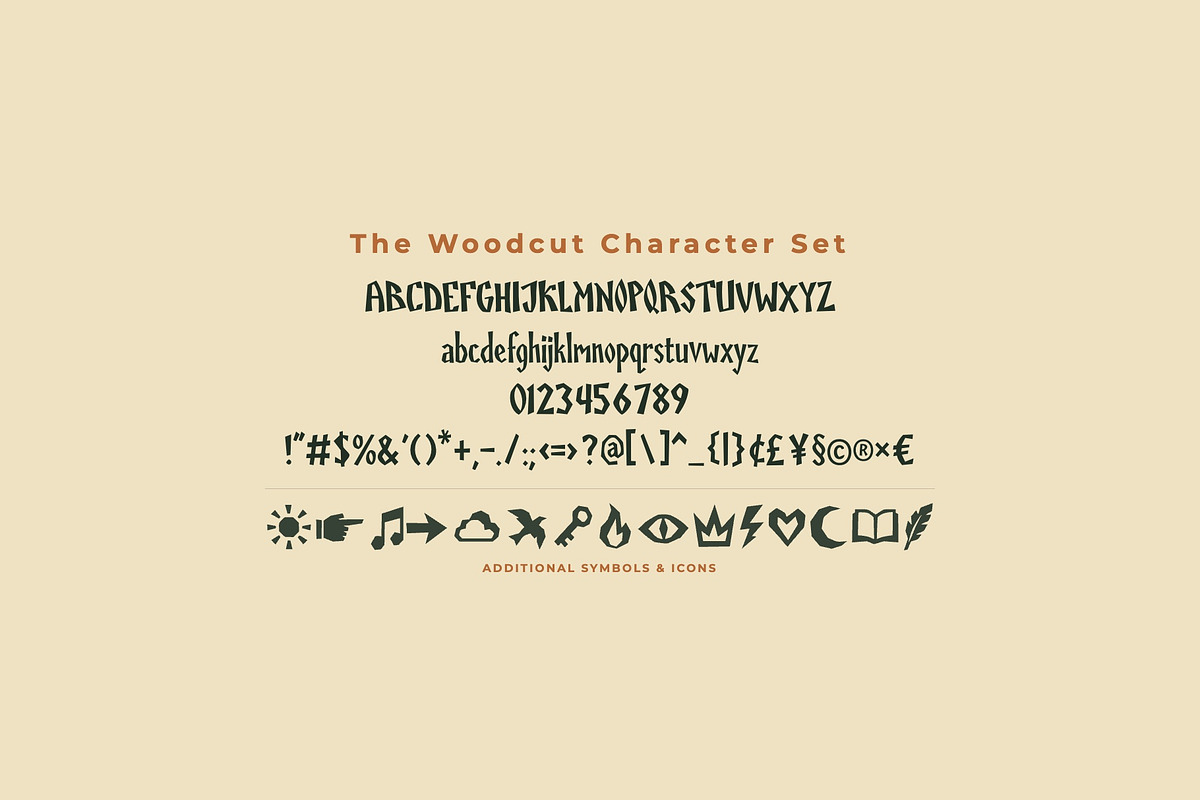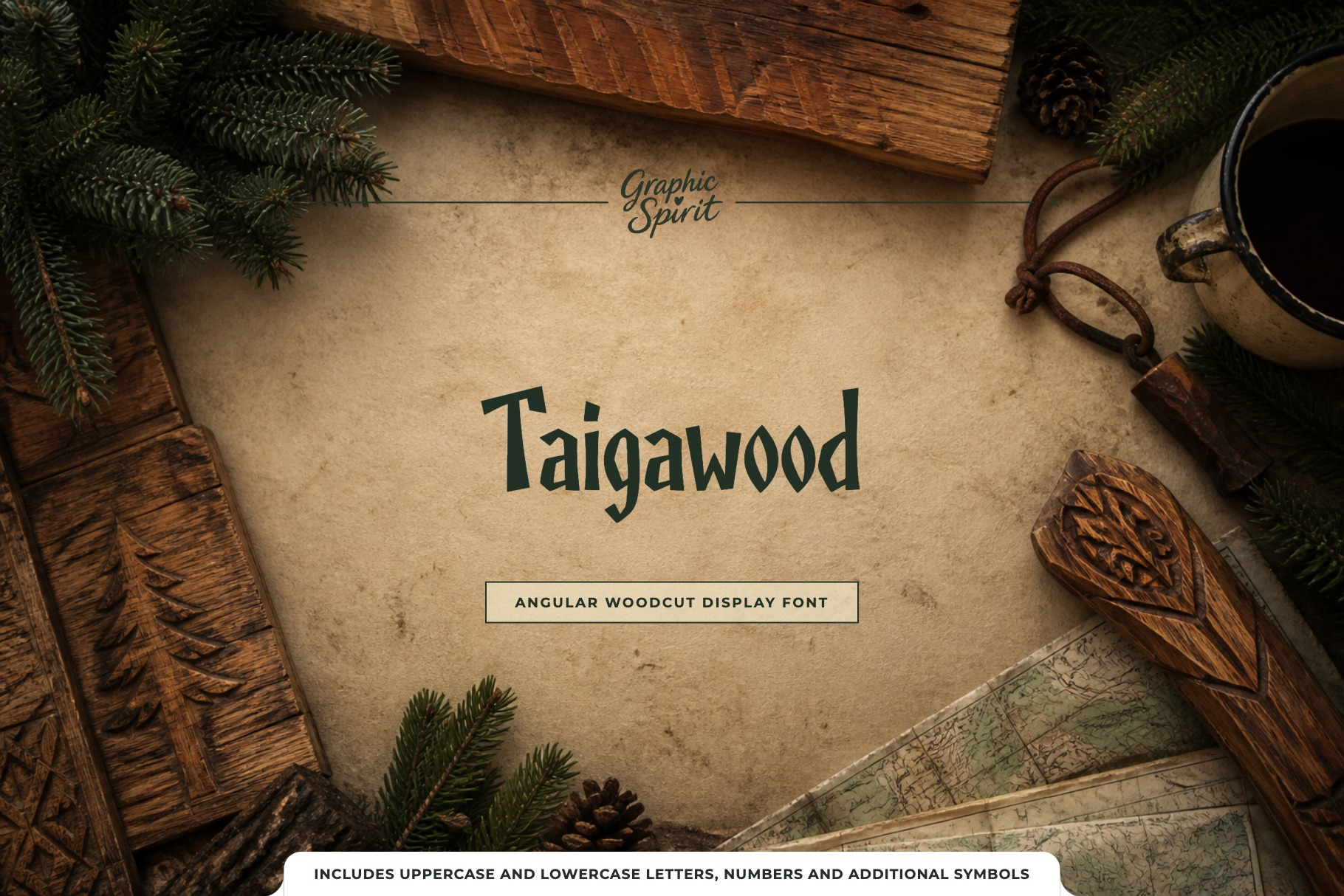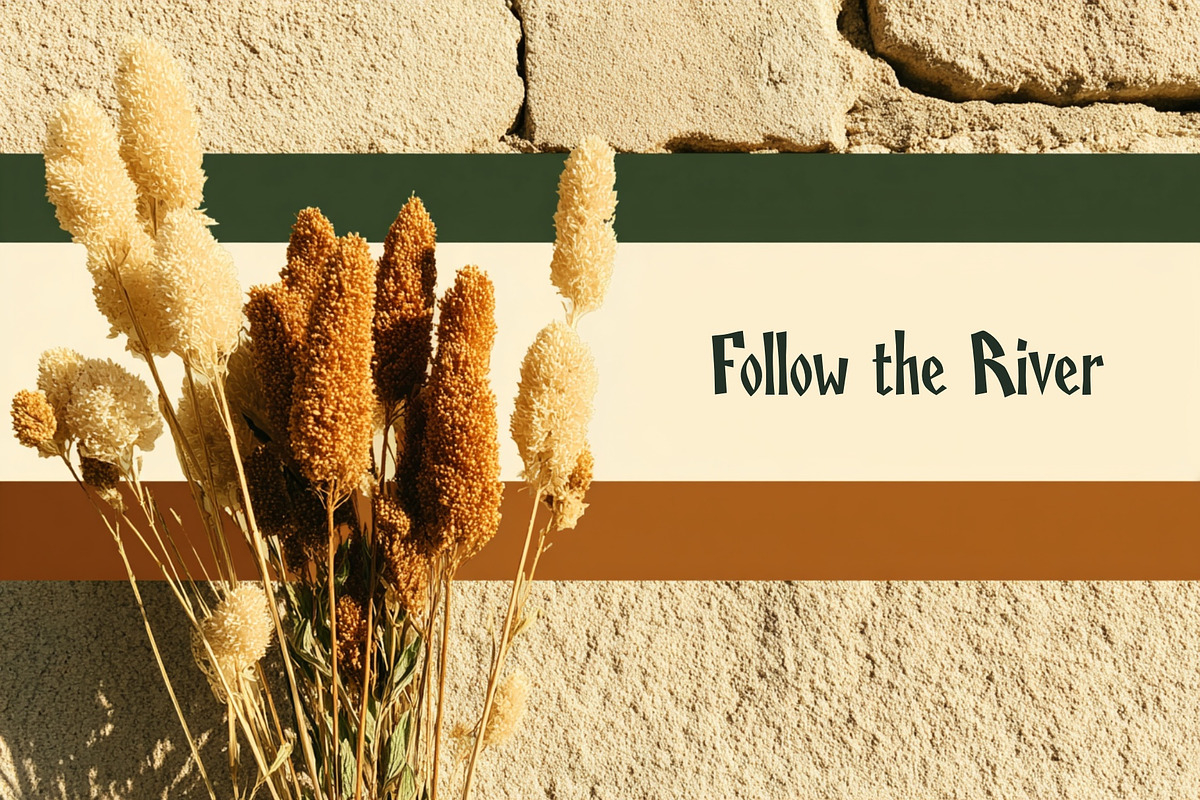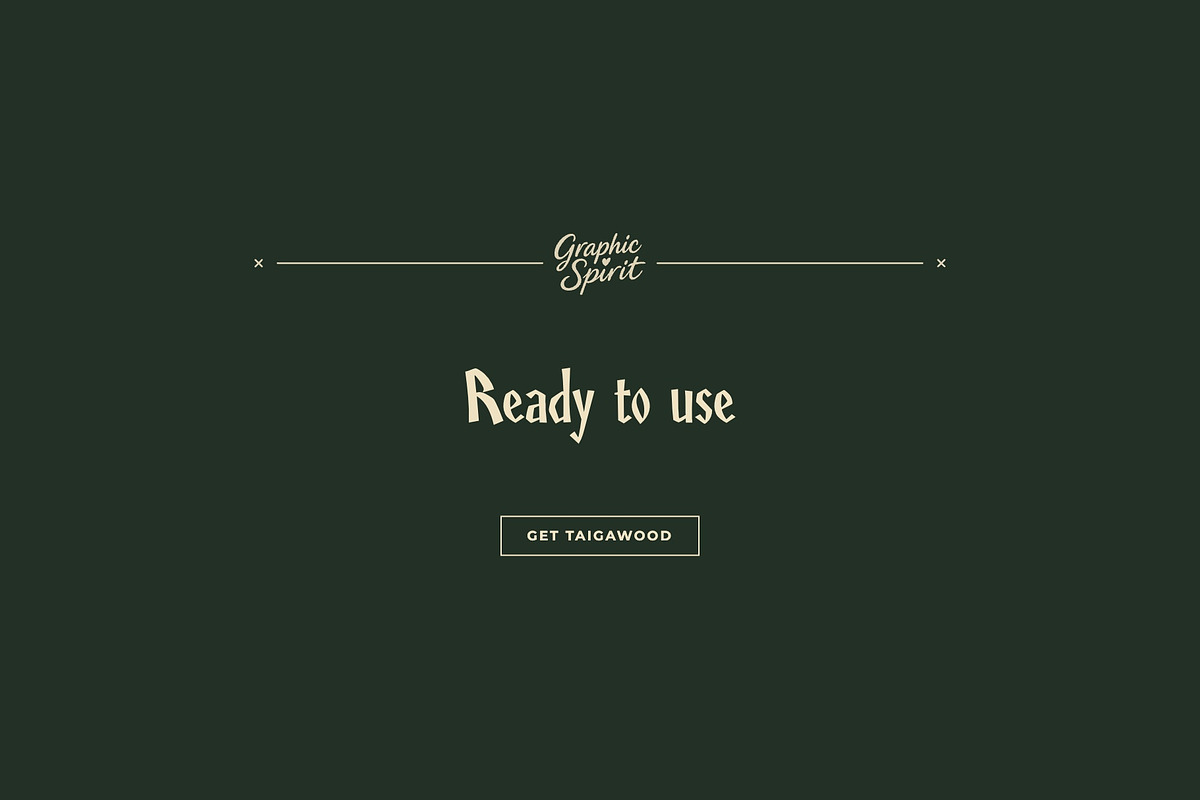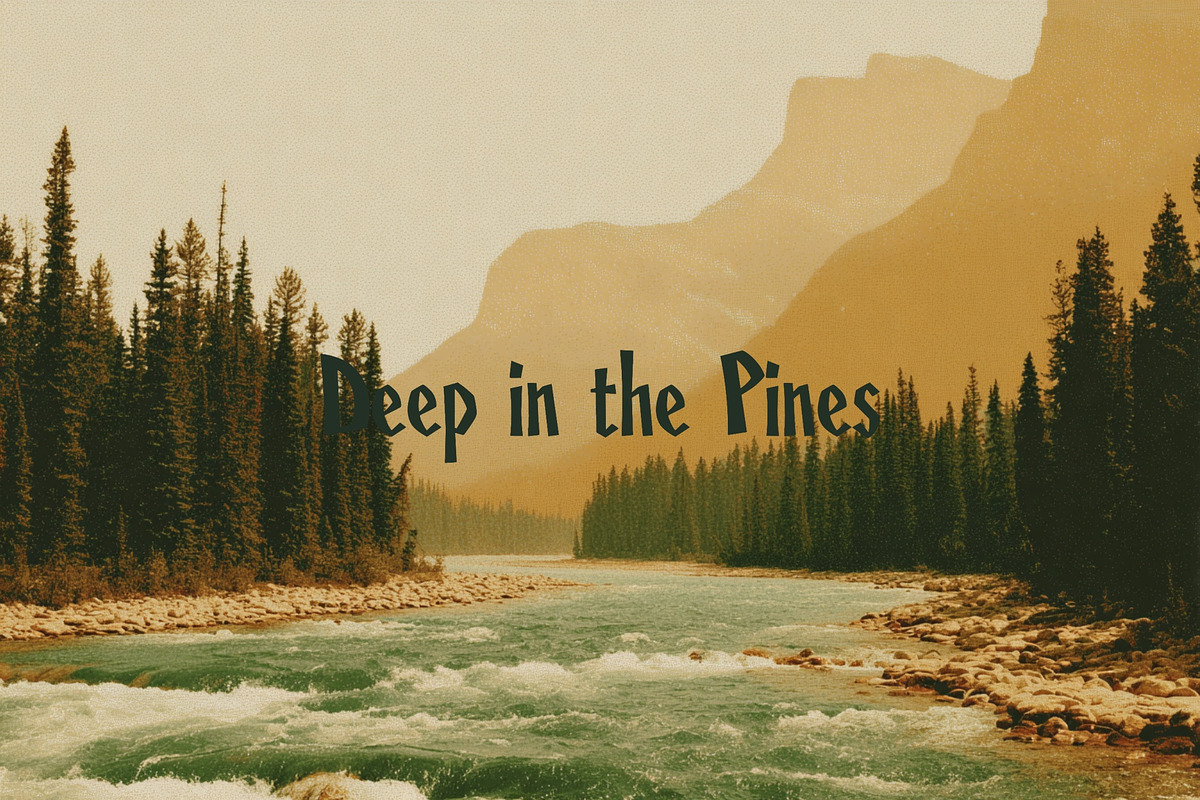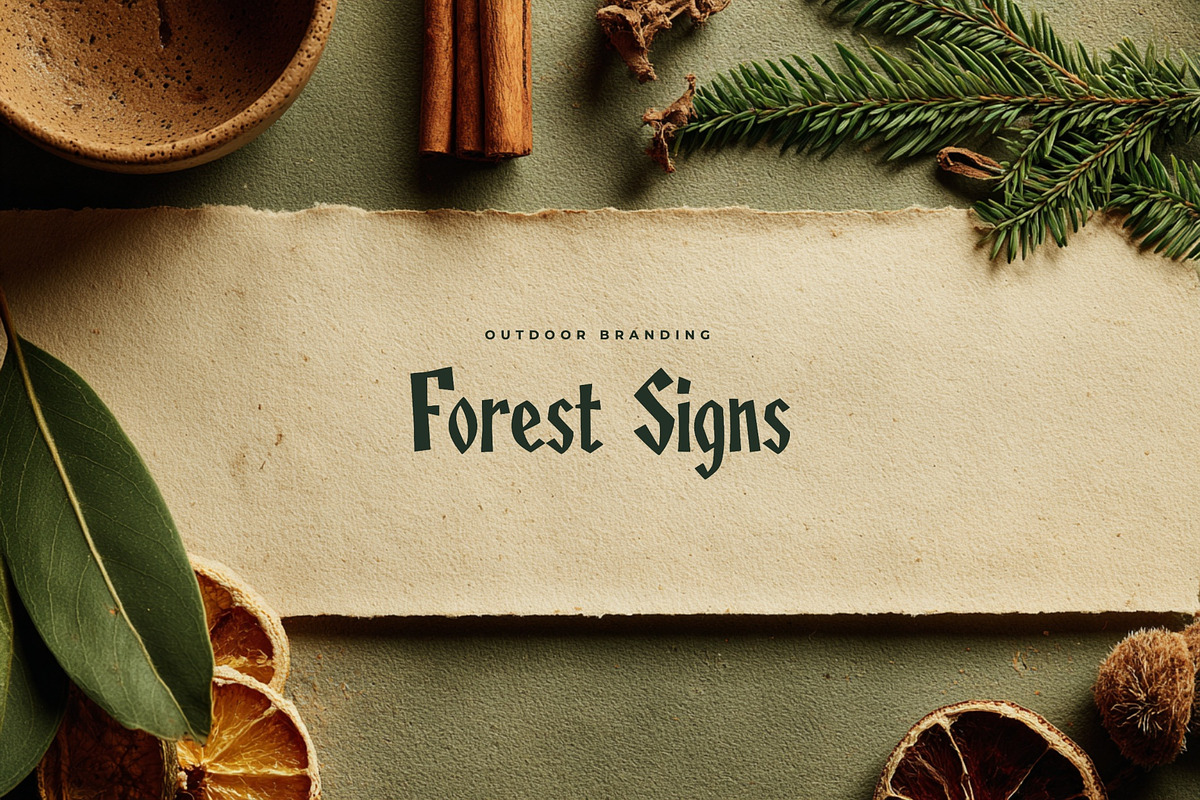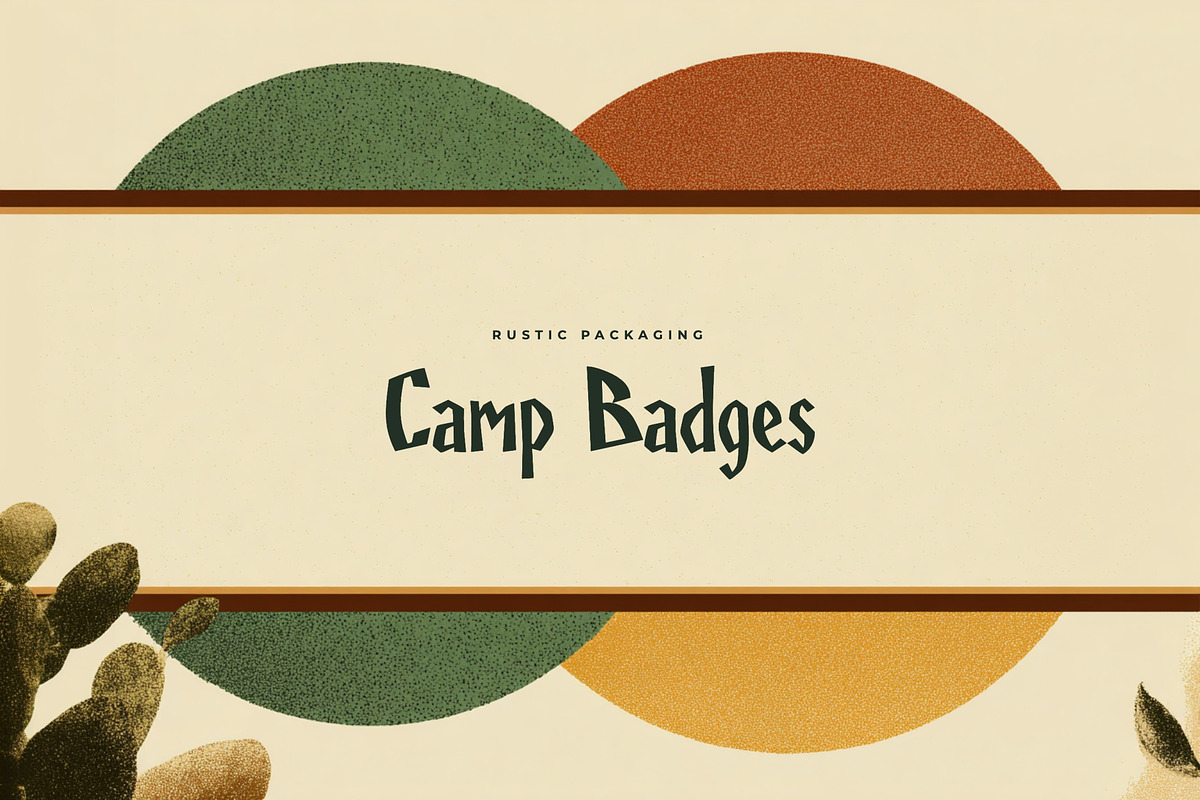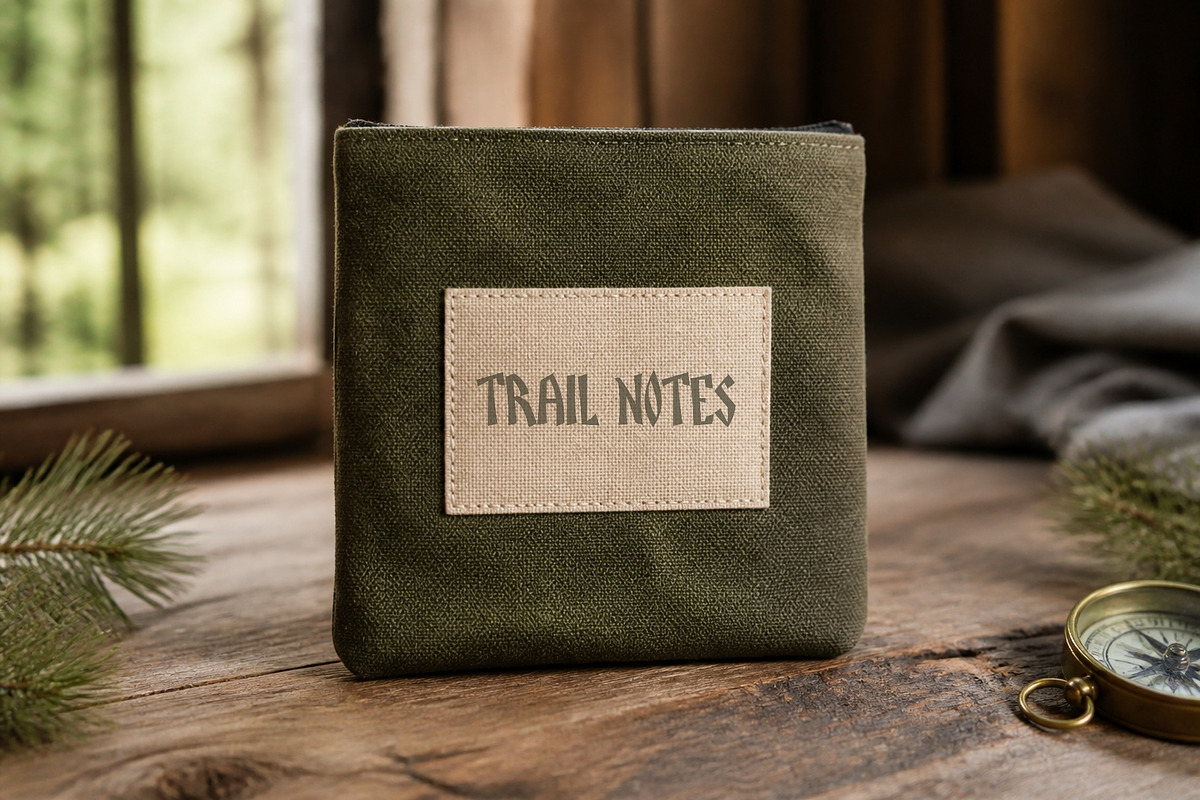
Taigawood Rustic Woodcut Font
🌲 🪵 🏕️ ✨ Taigawood is a angular woodcut display shaped by rugged forest character and carved outdoor rhythm. It was created for designers and independent brands looking for expressive display typography that feels specific rather than generic.
🎨 The font works beautifully across outdoor branding, camp badges, trail signage, rustic packaging, posters. Use it for a confident headline, a memorable product name, or a typographic accent that ties a visual identity together. 💫
🌟 Best for:
- 🌲 Outdoor Branding
- 🪵 Camp Badges
- 🏕️ Trail Signage
- 🌲 Rustic Packaging
- 🪵 Posters